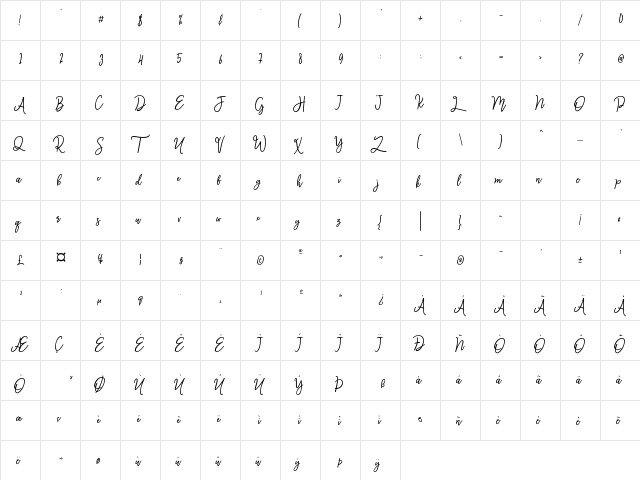
Monalisa Script Regular
| Foundry | Sizimon |
| Designer | Faisal Tanjung |
Design Context for Monalisa Script Typeface
Monalisa Script brings a calligraphic fluidity to the page — its connecting strokes and expressive curves give it an unmistakably human quality.
Font Pairing: Combine Monalisa Script with a simple geometric sans for maximum contrast — the tension between flowing curves and clean structure is a classic typographic pairing.
Pro Tip: Pair Monalisa Script with a clean sans-serif for supporting text. The contrast between fluid script and geometric structure creates an elegant typographic hierarchy.